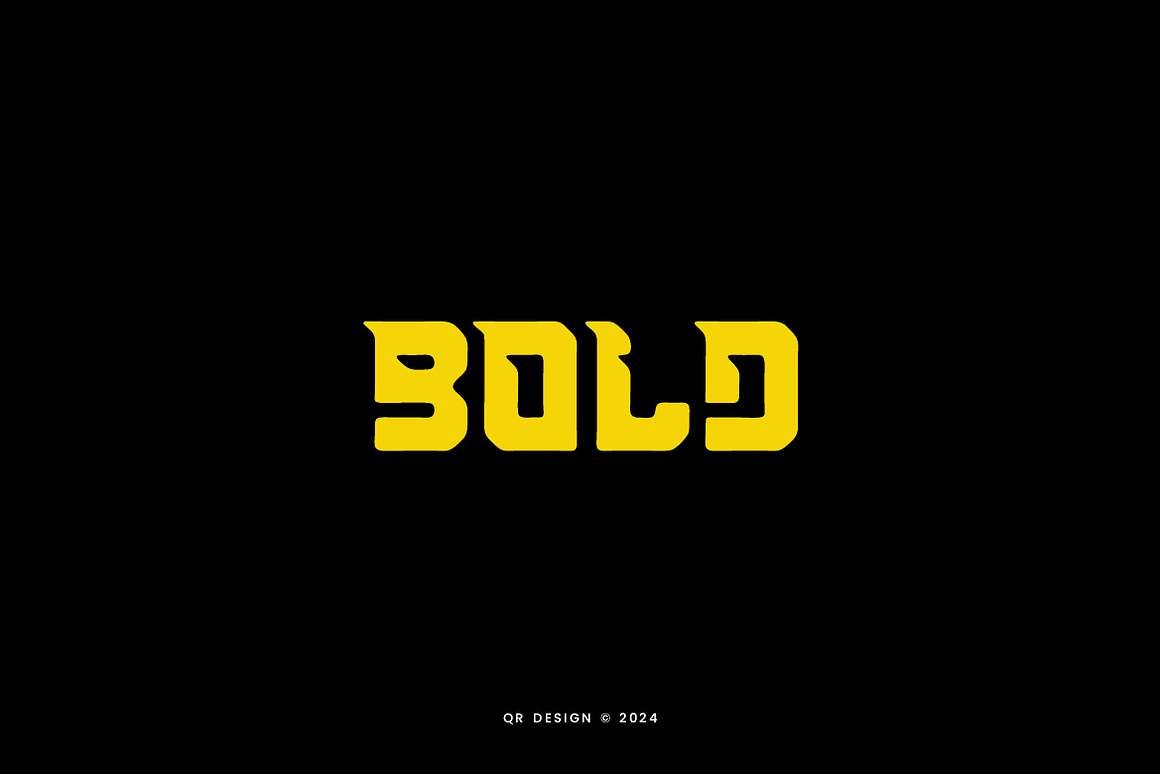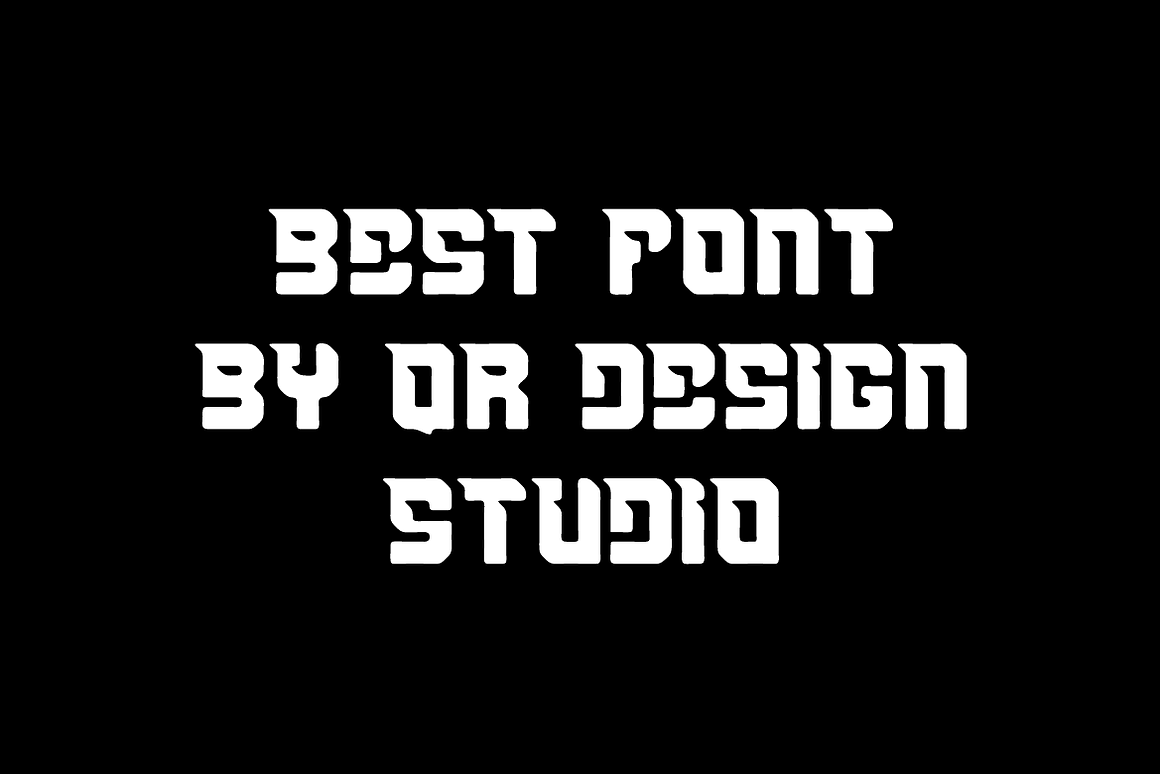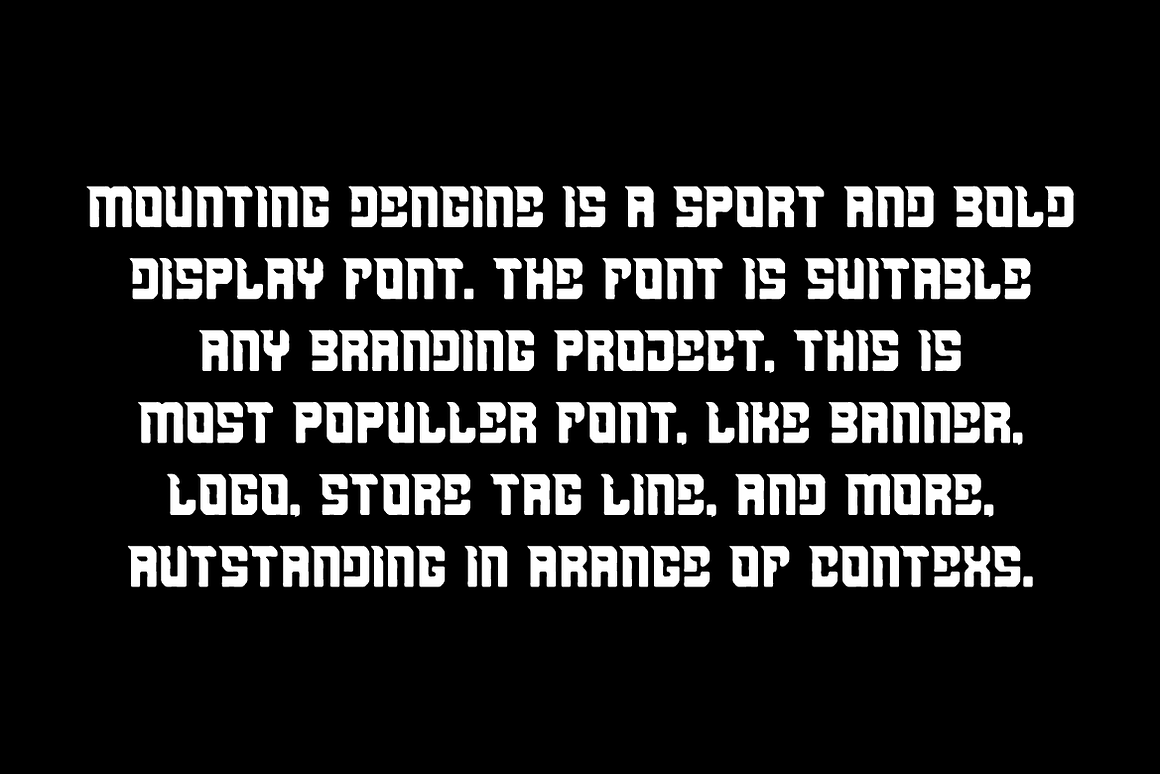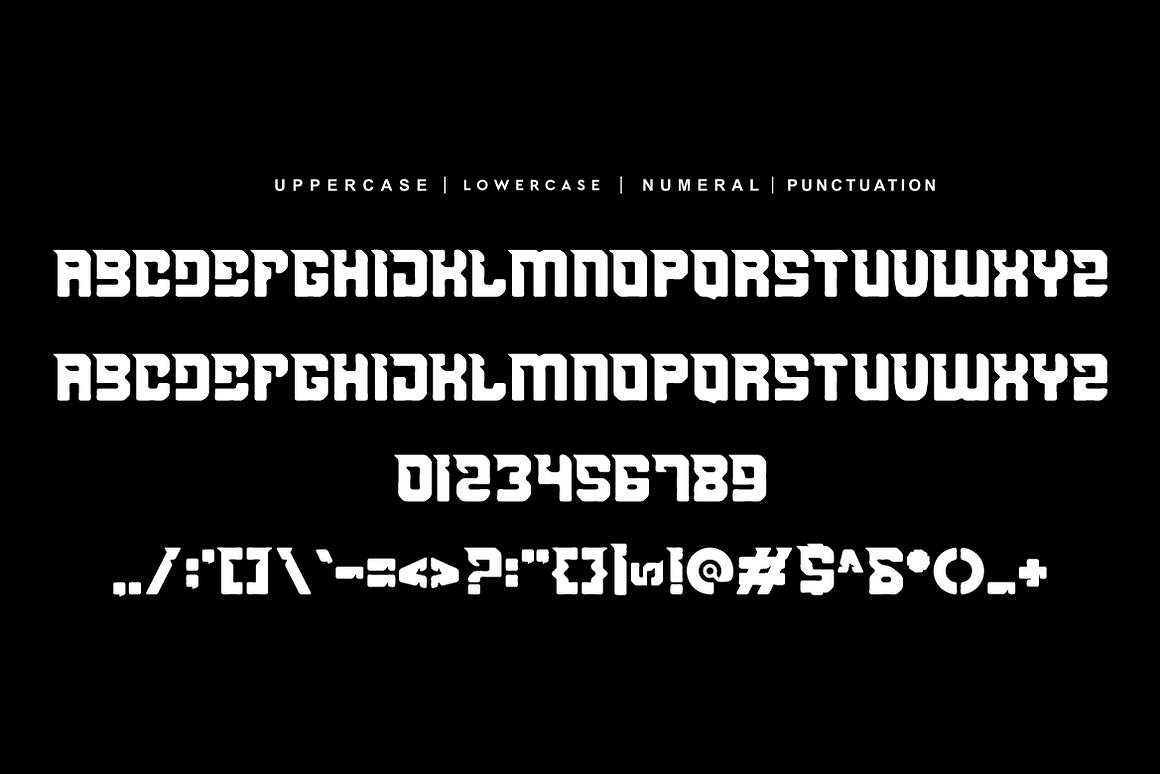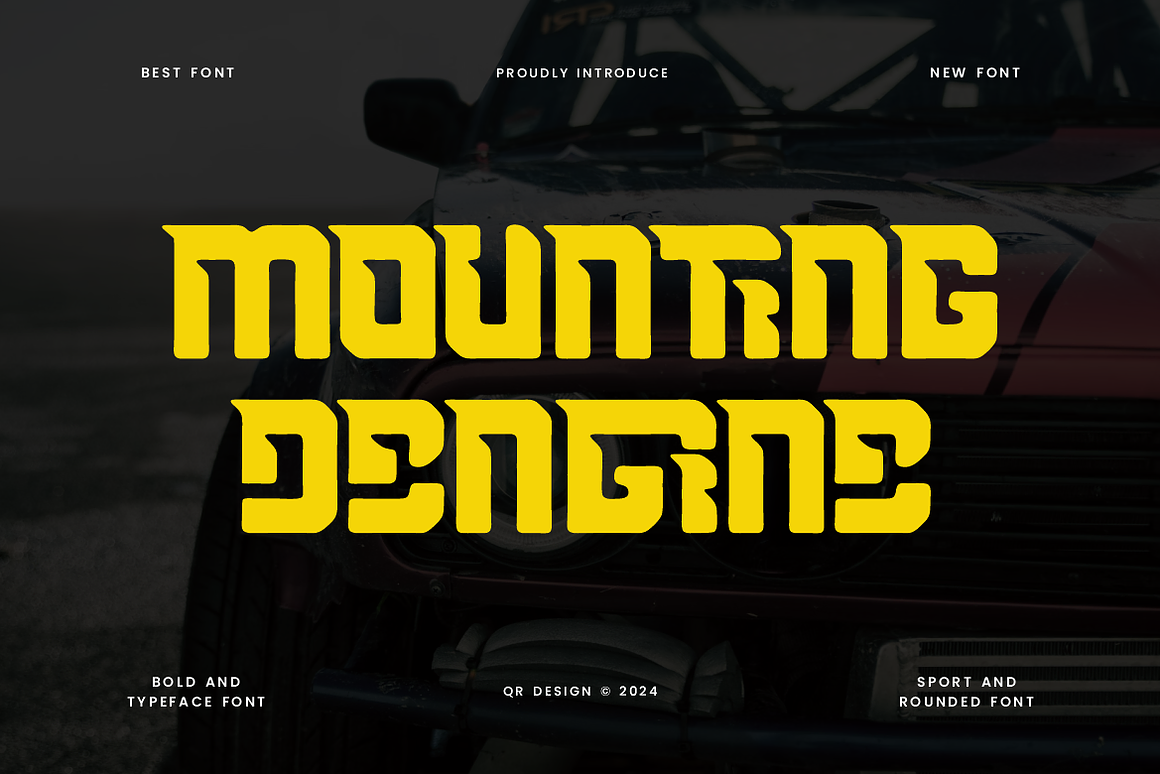
Mounting Dengine Automotive-Car Font
Mounting Dengine Font is a bold and authentic display font. The font is suitable for any branding project like poster, logo, sport, and many more. Outstanding in a wide range of contexts.